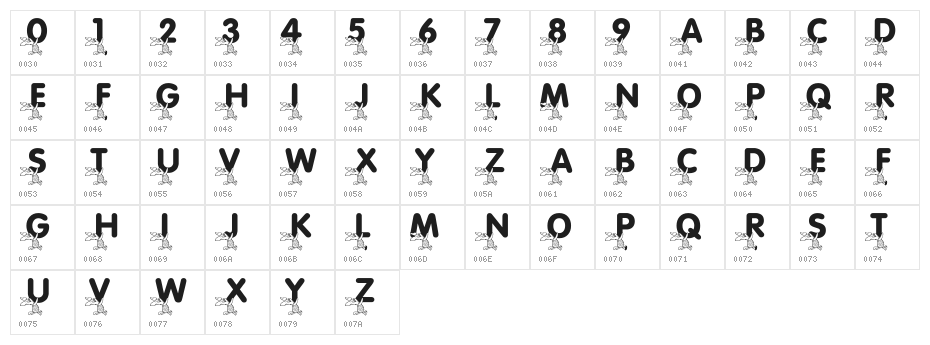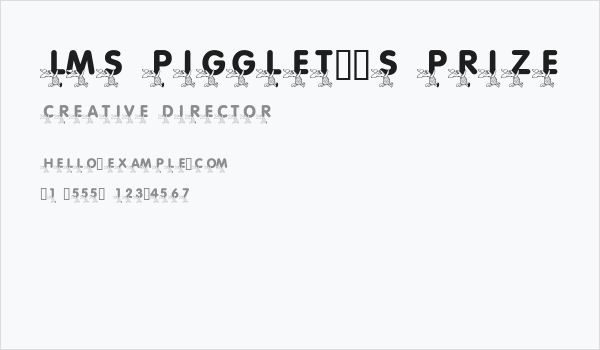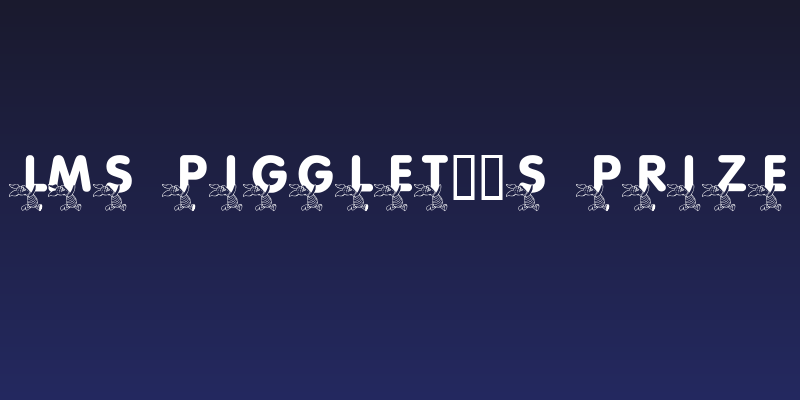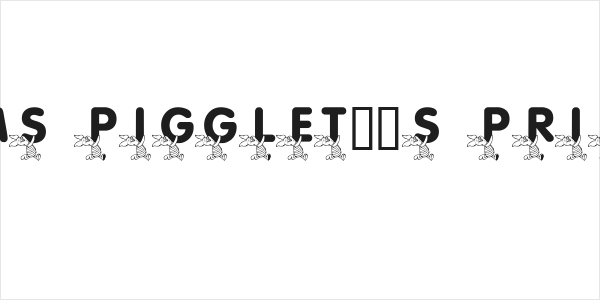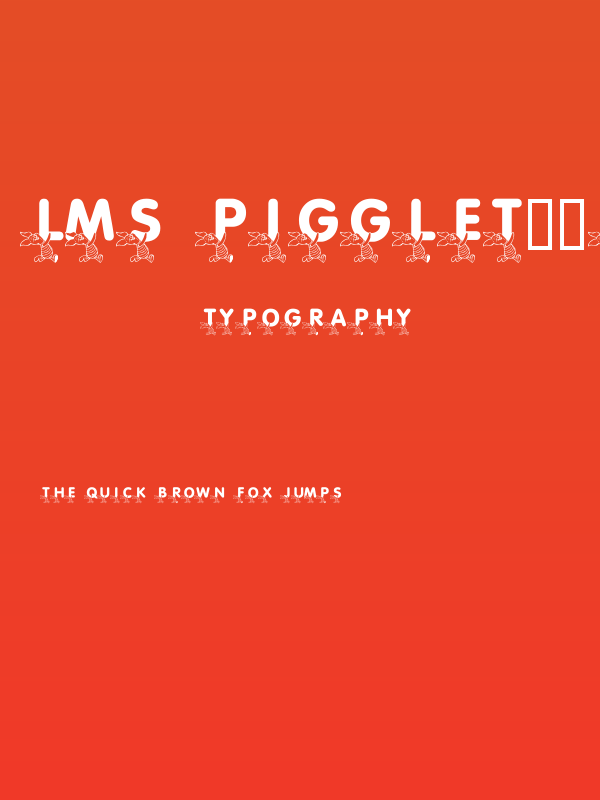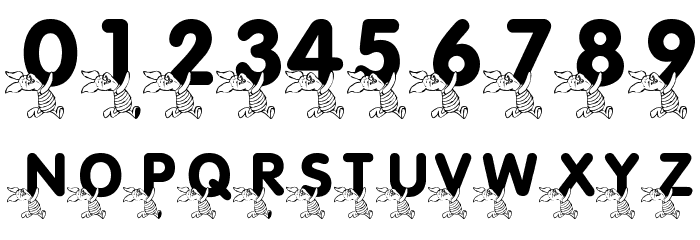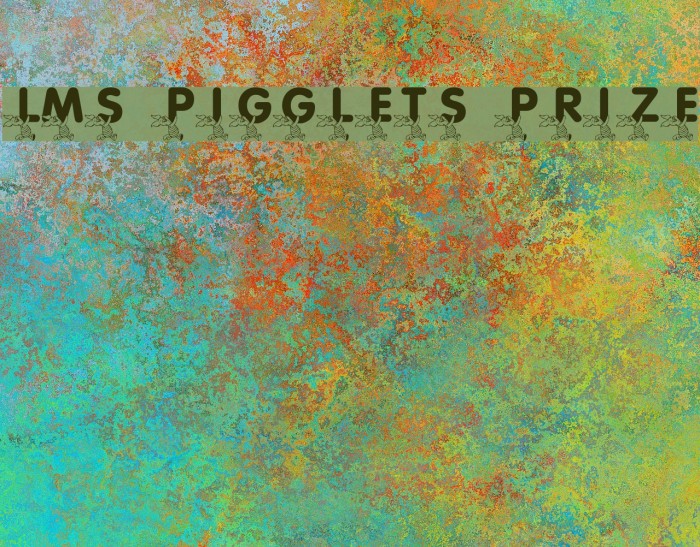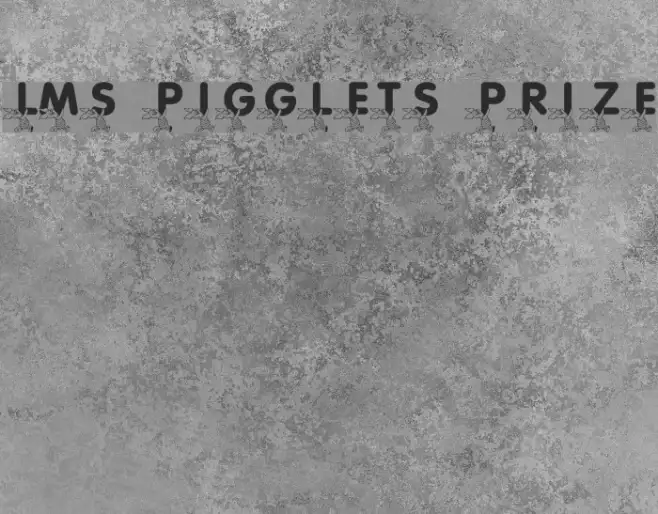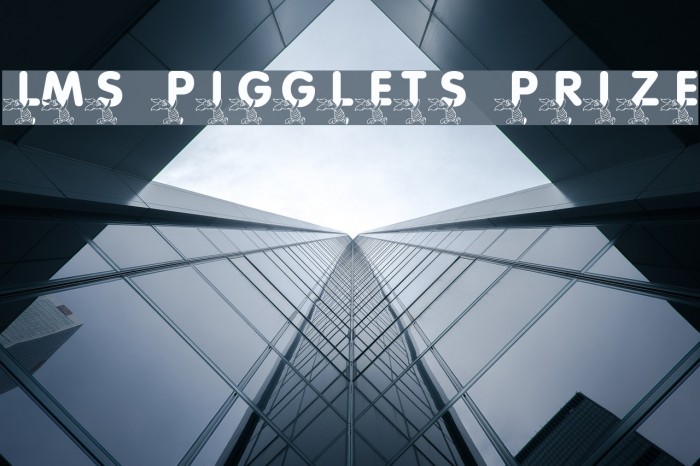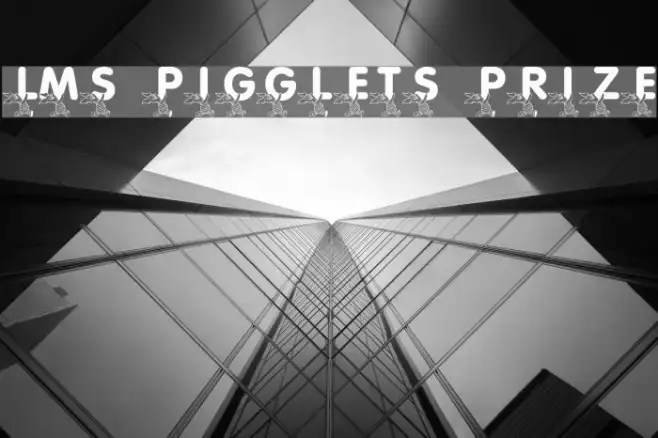
LMS Pigglet's Prize Font
LMS Pigglet's Prize Description
This playful and whimsical font features bold, rounded characters with a unique decorative element of cartoon piglets integrated into the design. The uppercase and lowercase letters maintain a consistent style, with each character exhibiting a smooth, rounded form that adds a friendly and approachable feel. The numbers follow the same design principles, ensuring uniformity across all characters. The font's distinctive style is enhanced by the piglet illustrations, making it ideal for projects that require a fun and lighthearted touch. This font is perfect for children's books, playful branding, or any creative project that seeks to convey joy and imagination.
| Overall Style | Whimsical |
| Proposed Projects | Children's books, playful branding, creative invitations, and fun posters. |